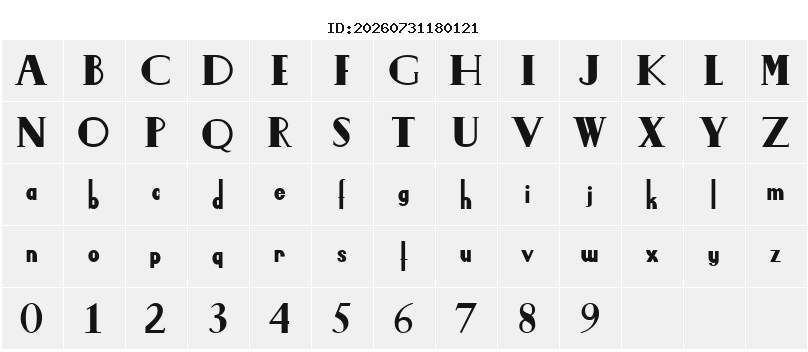
• Font Name: Leidenschaft
• Designer: Danny Evans
About Leidenschaft.ttf
Leidenschaft.ttf is a modern, elegant sans-serif font designed for ultimate readability and visual harmony. Perfect for branding, headlines, web design, and print materials.